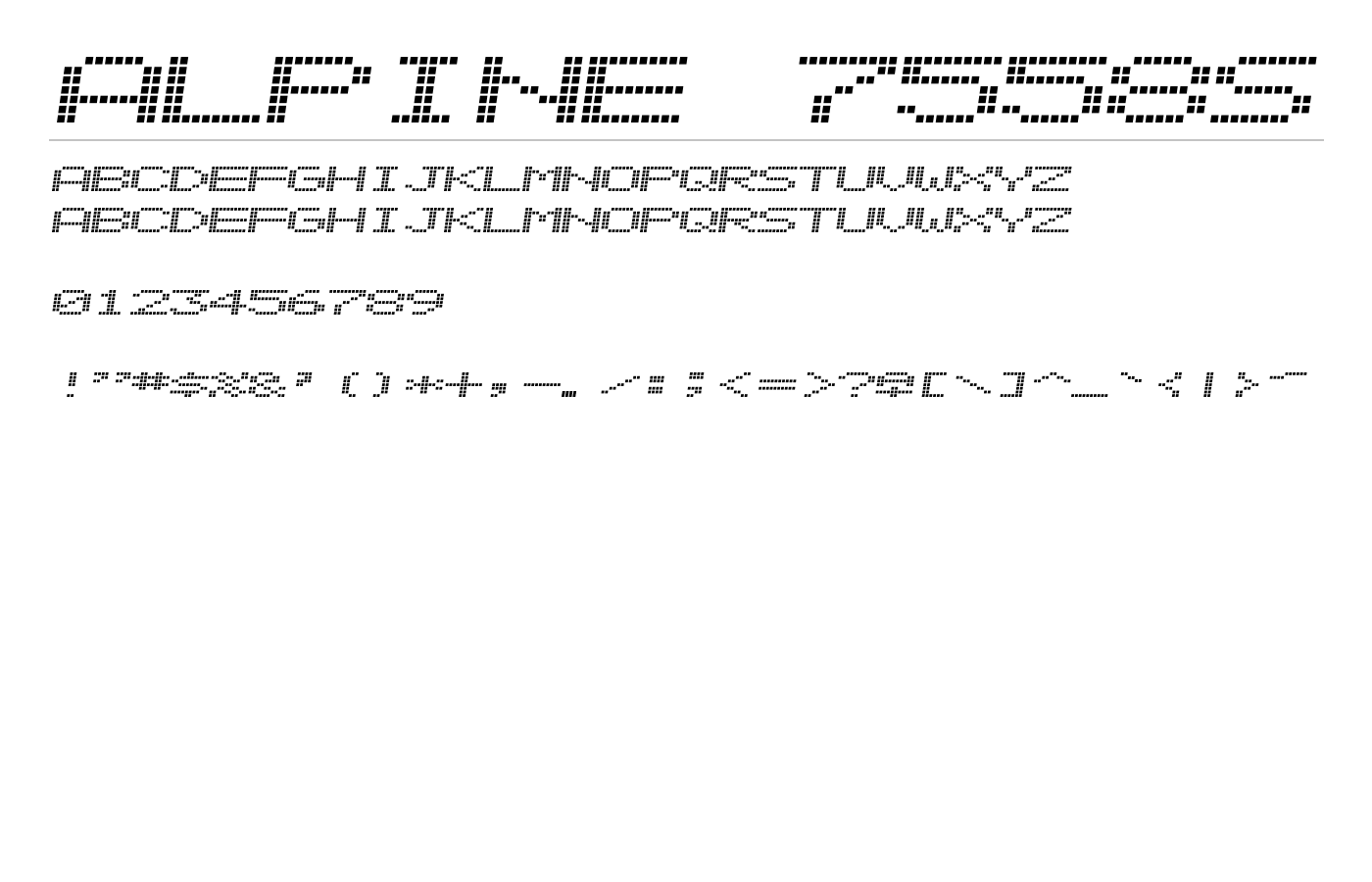
Alpine 7558S is a modern, pixelated sans serif font that evokes a digital, futuristic feel with its square, modular grid design. Its light weight and narrow width combined with consistent dot-like strokes create a tech-savvy, clean, and minimalist aesthetic suited for digital displays, tech branding, and modern editorial work where a contemporary, electronic vibe is desired. This font works best in headlines, logos, and user interfaces where clarity and a cutting-edge style are key.
Alpine 7558S Font